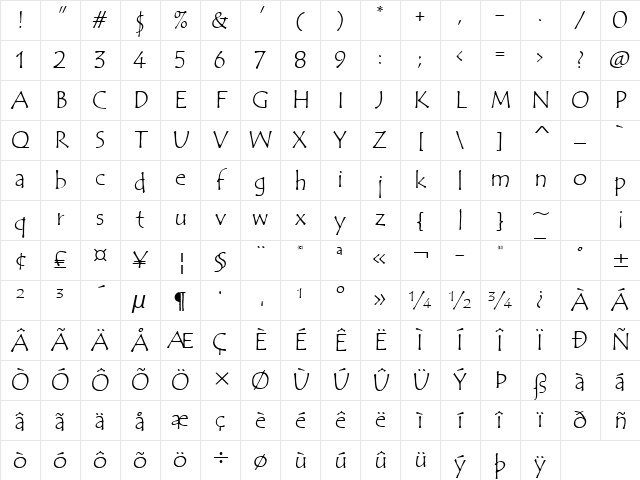
Tempus Sans ITC Regular
Foundry: International Typeface Corporation
Designer: Phill Grimshaw
Tempus Sans ITC Family
Design Context for Tempus Sans ITC
Tempus Sans ITC is a composed and adaptable typeface that performs quietly and consistently across a wide range of design contexts.
Pro Tip: Use Tempus Sans ITC in both headline and body roles to test its range before committing to a single application.